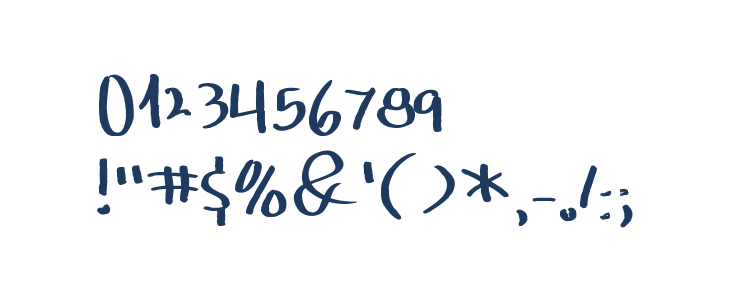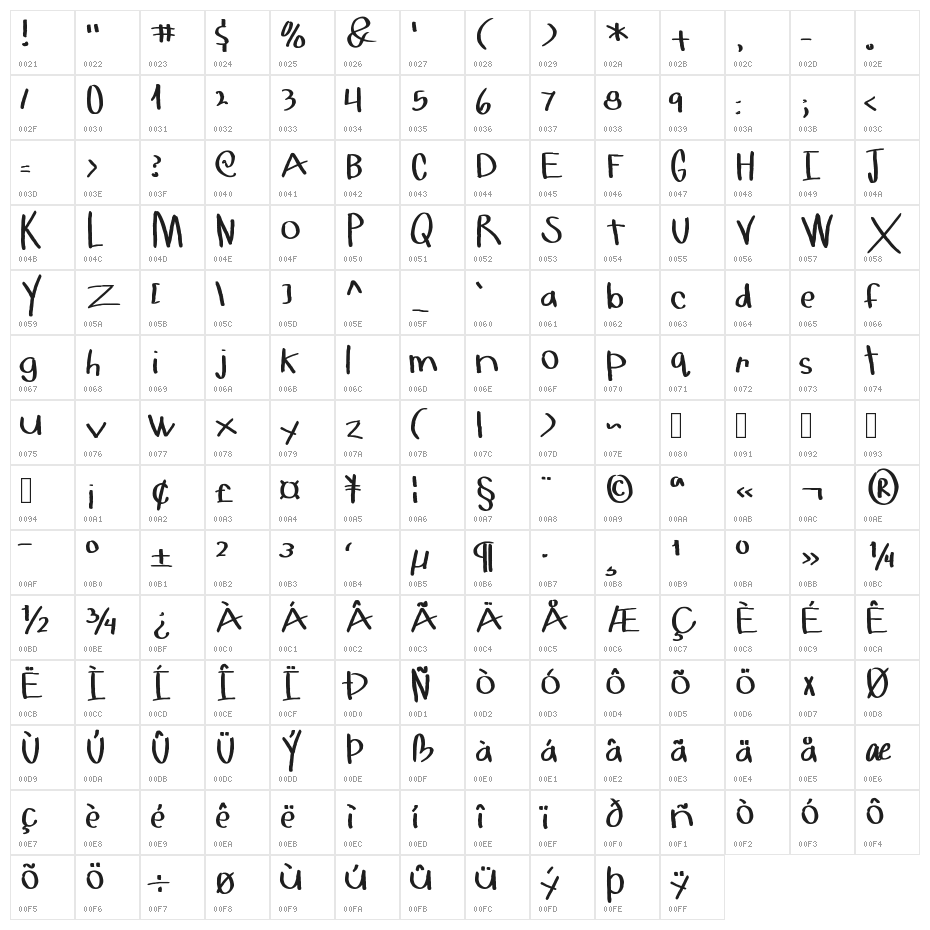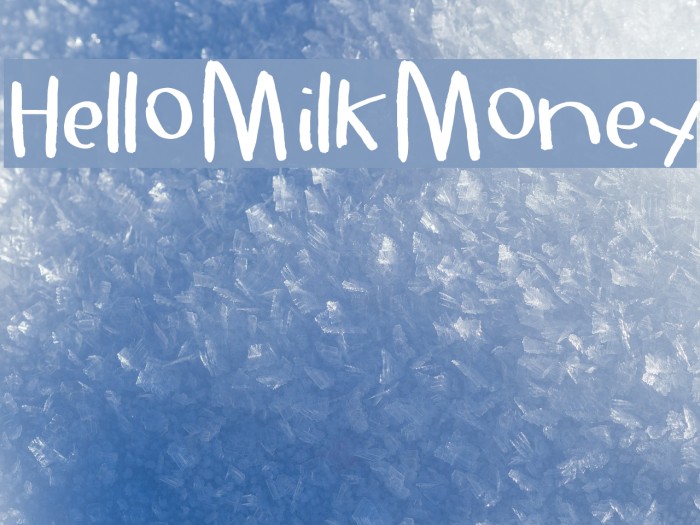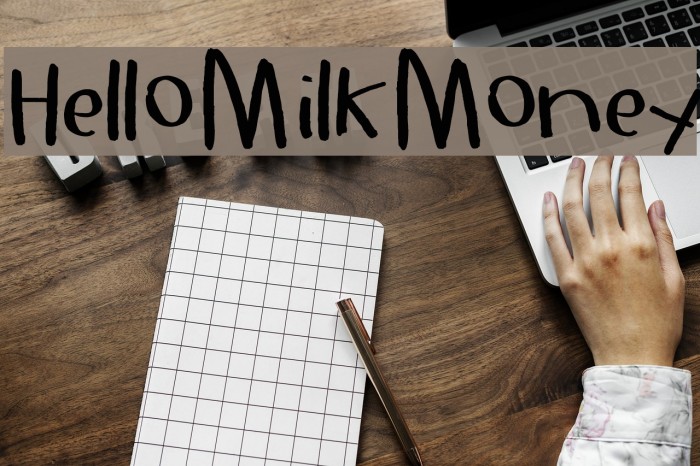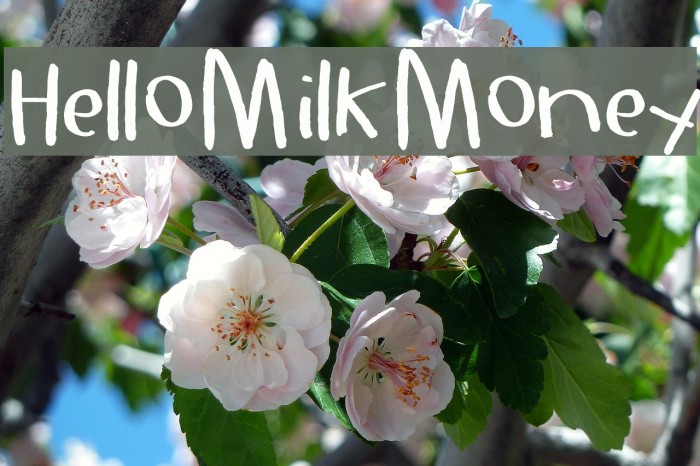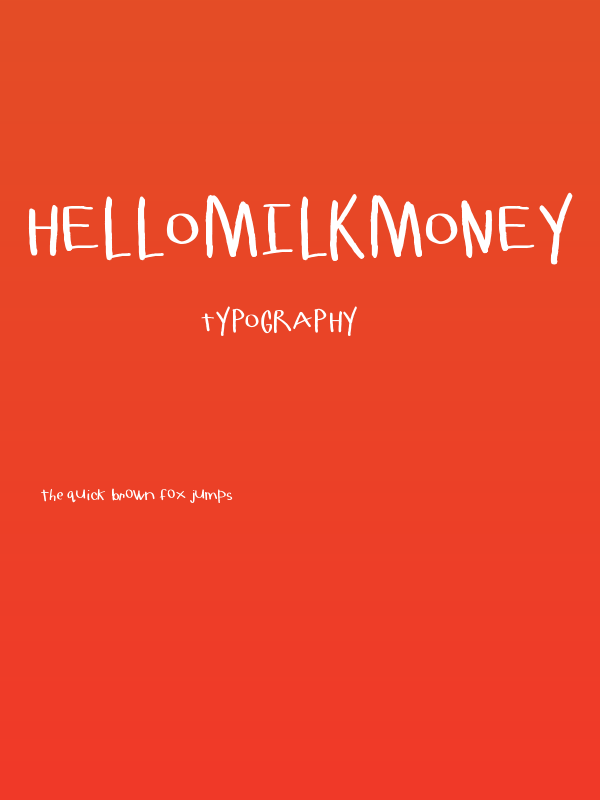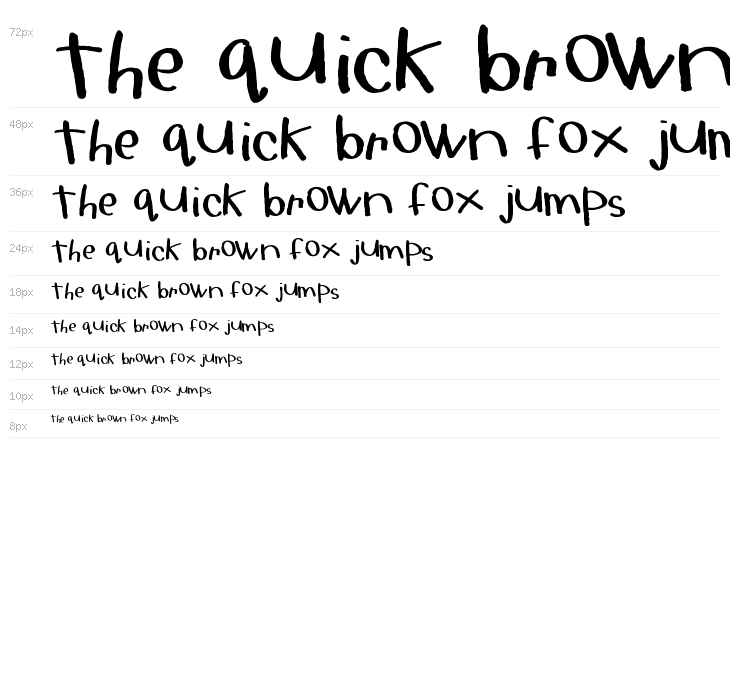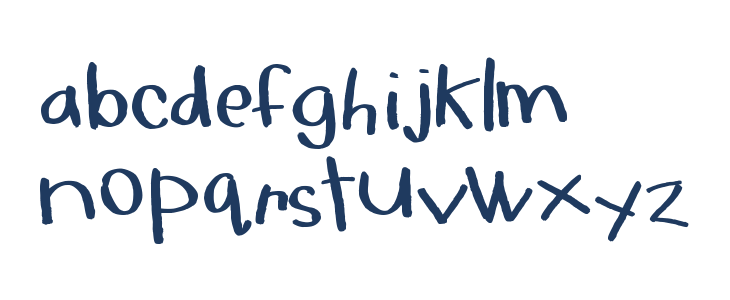
HelloMilkMoney Font
HelloMilkMoney Description
This font exudes a playful and casual handwritten style, characterized by its uneven strokes and slightly irregular letterforms. The uppercase letters are bold and prominent, while the lowercase letters maintain a consistent flow, adding to its informal charm. The numbers and special characters follow the same whimsical design, making them easily recognizable yet unique. The overall appearance is friendly and approachable, perfect for projects that require a personal touch.
| Overall Style | Casual, Playful |
| Use Case | Headlines, Informal Text, Branding |
| Proposed Projects | Ideal for greeting cards, children's books, casual branding, and social media graphics. |